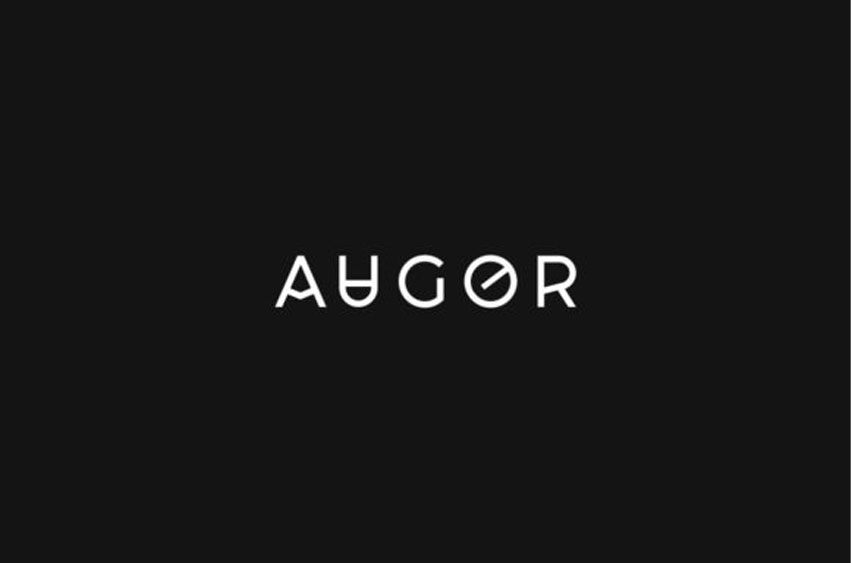
Augor Font
Augor Font is a clean and modern looking display font.
Add this minimalist and techno styled font to your web designs, logos or pretty much anything that requires a smart, cool touch.